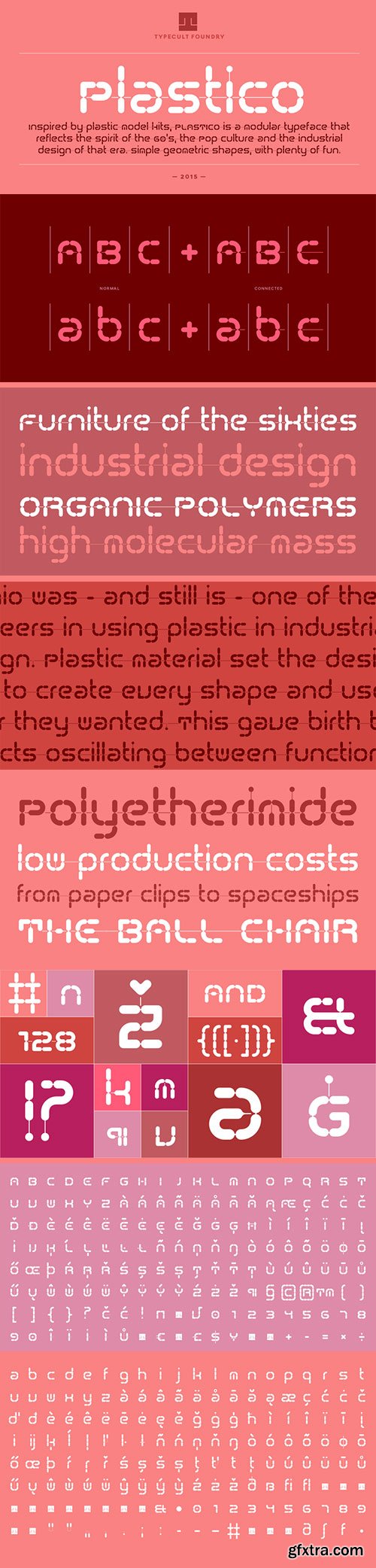
TCF Plastico - 60's Modular Typeface
- Inspired by the idea of the plastic model kits, TCF Plastico is a modular typeface that reflects the spirit of the 60’s, the Pop culture and the industrial design of that era. Despite the very simple and straightforward geometric shapes, TCF Plastico is a very delightful and humorous typeface. TCF Plastico was designed with a couple of special OpenType features in order to ensure the connection between all of the characters, but only when necessary.